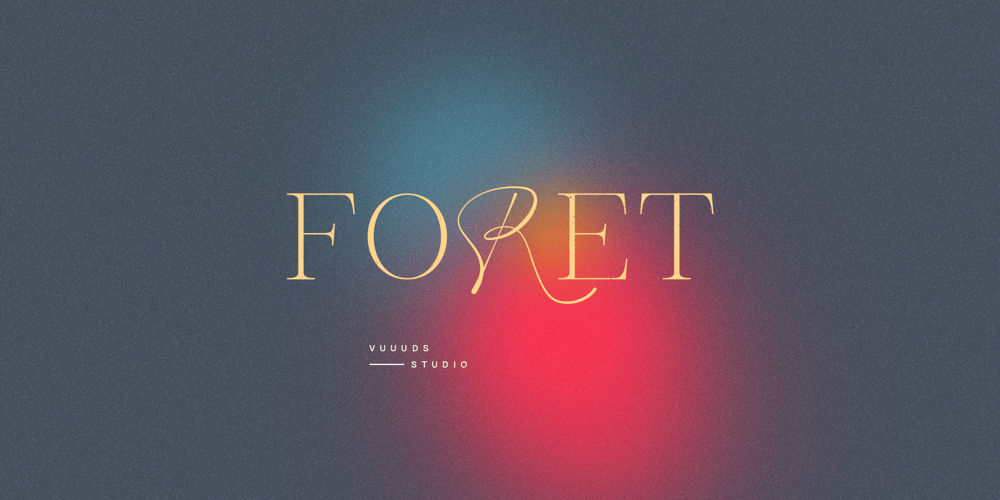
Foret Font Family was designed by Agung Syaifudin and published by vuuuds. Foret contains 1 styles and family package options. Introducing Foret Font Duo!Foret is modern experimental serif and script font duo, every single letters have been uniquely crafted.This font including beautiful alternate glyph. You can access the alternate glyph via Font Book (Mac user) or Windows Character Map (Windows user), I’ve been put the link tutorial inside the zip file…instagram.com/vuuuds.studio